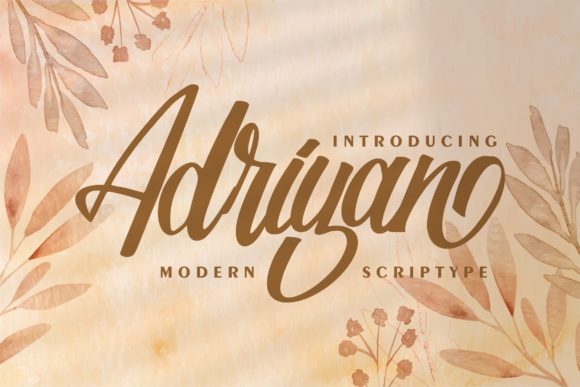
Unleash the Beauty and Sophistication of Your Creative Resume with Adriyan Font - The Epitome of Elegance
In the realm of creativity, the power of visual appeal cannot be underestimated. When it comes to crafting a compelling creative resume that captivates the attention of potential employers, the font you choose plays a pivotal role in conveying your personality, skills, and aspirations. Allow us to introduce you to Adriyan Font, a breathtaking script font that will transform your resume into an exquisite masterpiece.
Meet Adriyan Font, a font that embodies the essence of elegance and class. Each meticulously crafted letter exudes a delicate touch, reminiscent of a skilled calligrapher's hand. Inspired by the beauty of handwritten scripts, Adriyan Font adds a touch of sophistication and charm to your resume, making it stand out from the multitude of ordinary applications.
Crafted with the utmost care and attention to detail, Adriyan Font is not just another font; it's an artistic expression that reflects your passion for creativity. With its graceful curves and flowing lines, this script font adds a touch of personality and uniqueness to your resume, capturing the essence of your creative spirit.
Beyond its aesthetic appeal, Adriyan Font is also incredibly versatile. Whether you're designing a creative resume for a graphic design position, a marketing role, or any other creative field, Adriyan Font effortlessly adapts to your needs. Its elegant style complements various design elements, allowing you to create a cohesive and visually stunning resume.
Embrace the Power of Adriyan Font:
- Elevate Your Creative Resume: Let Adriyan Font elevate your resume to new heights of creativity and professionalism. Its mesmerizing script style will leave a lasting impression on potential employers, ensuring your application stands out from the crowd.
- Unleash Your Personality: Express your unique personality through the intricate details of Adriyan Font. Each letter carries a story, allowing you to convey your passion, creativity, and unwavering dedication to your craft.
- Conveying Professionalism and Expertise: Adriyan Font exudes professionalism and expertise, leaving a lasting impression on potential employers. Its sophisticated style communicates your attention to detail and commitment to presenting yourself in the best possible light.
- Add a Touch of Sophistication: Enhance your resume with the sophisticated charm of Adriyan Font. Its graceful curves and flowing lines add a touch of elegance that sets your application apart from the ordinary.
Say goodbye to mundane and uninspiring resumes. With Adriyan Font, you hold the key to unlocking a creative masterpiece that will captivate the attention of employers and leave them eager to learn more about your talents and abilities. Embrace the beauty and elegance of Adriyan Font, and watch as your creative resume blossoms into a stunning visual representation of your creative spirit.
Welcome to the world of Adriyan Font, where elegance meets innovation, and creativity knows no bounds. Embrace the beauty of this script font and watch as your creative resume takes center stage, leaving a lasting impression on potential employers.